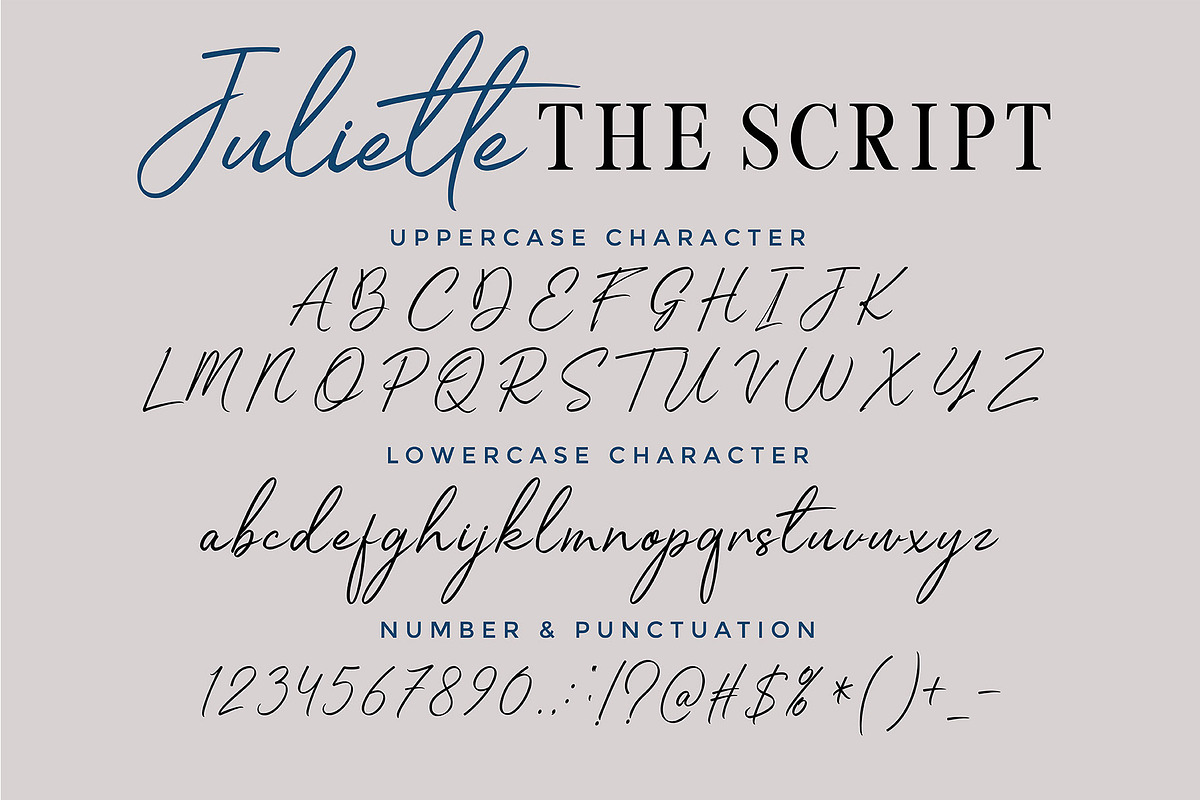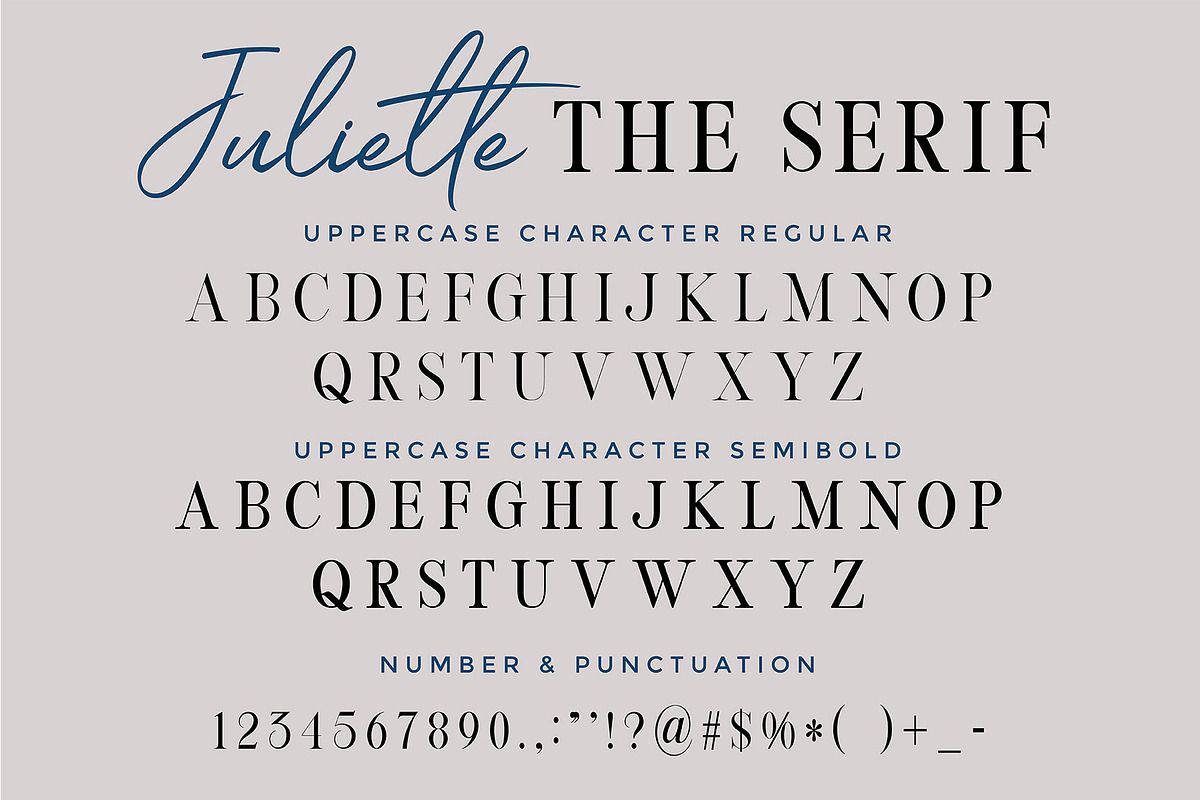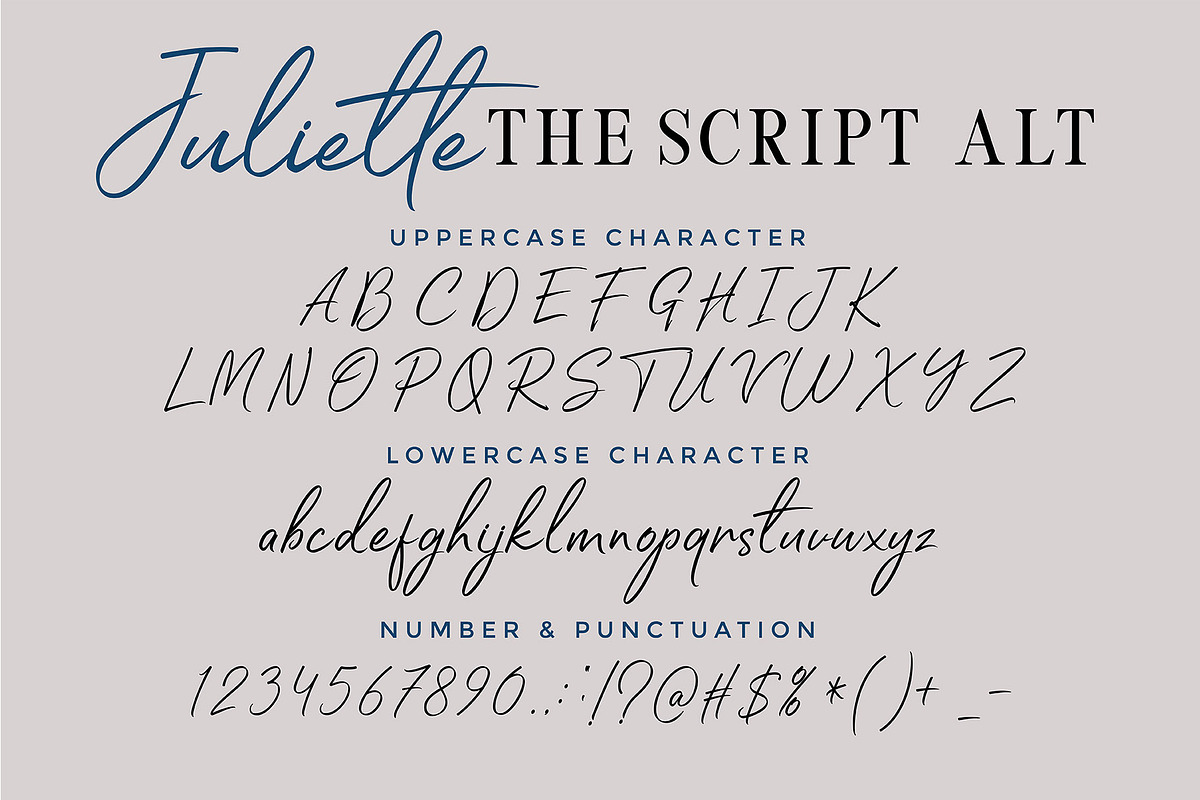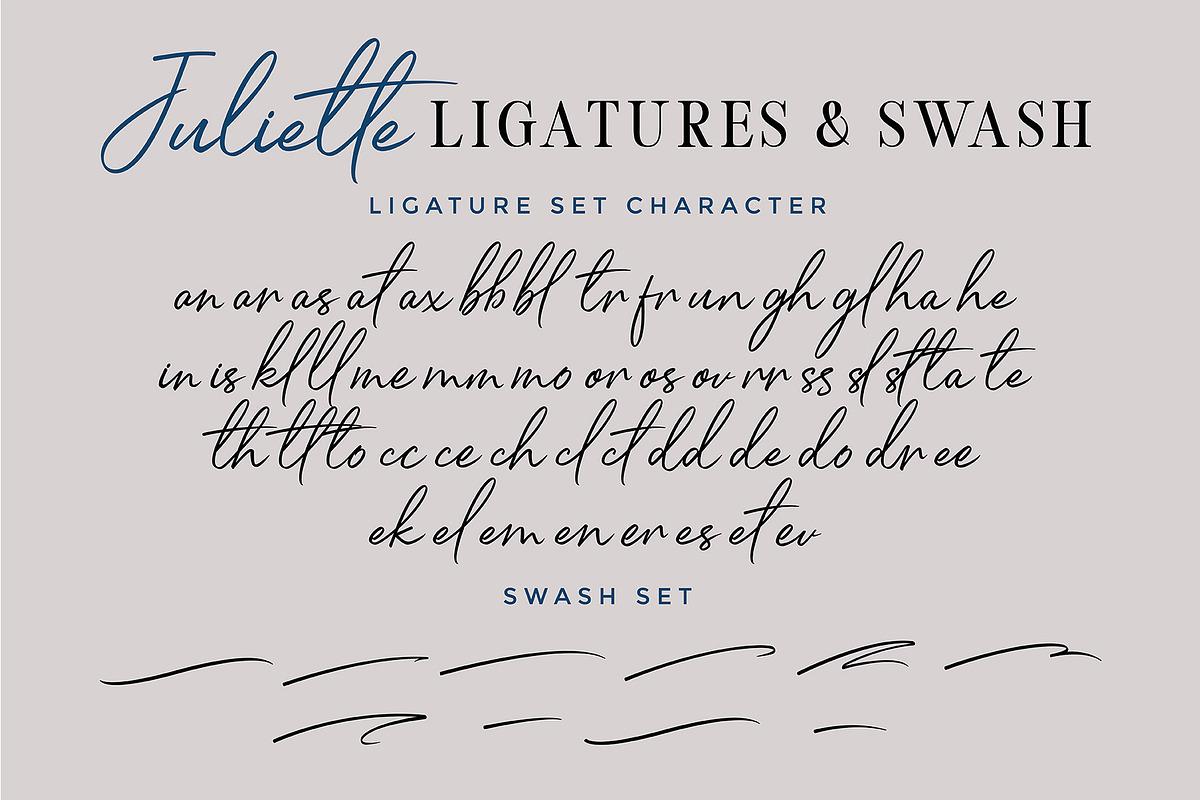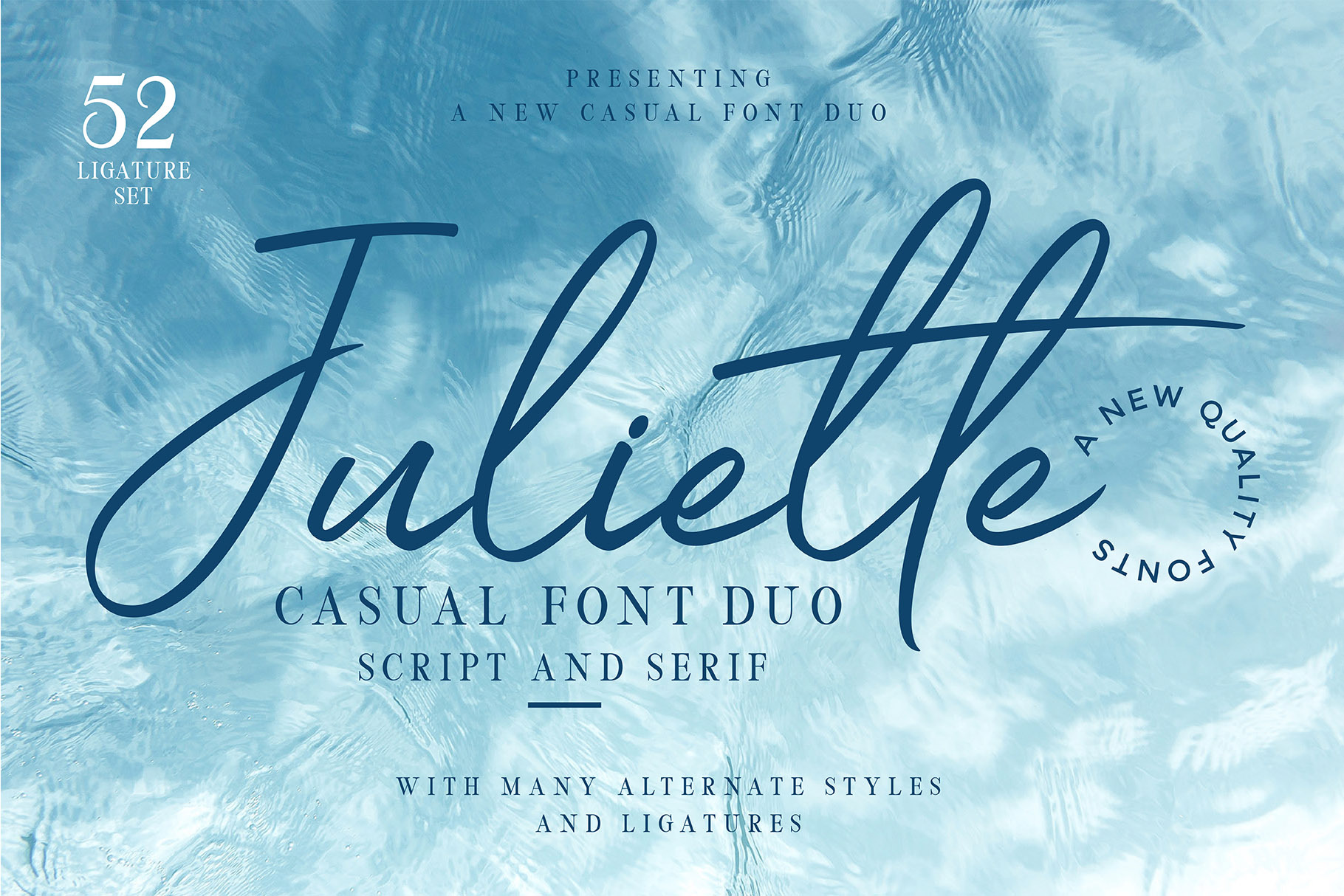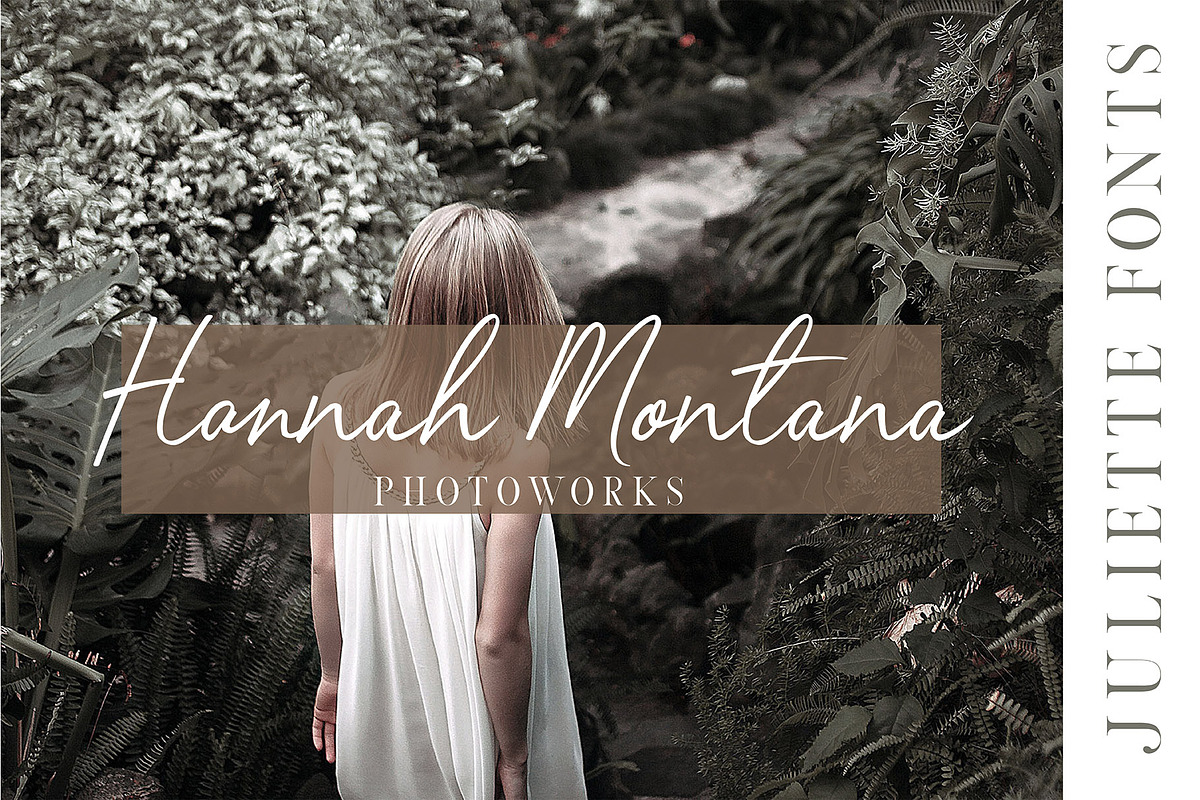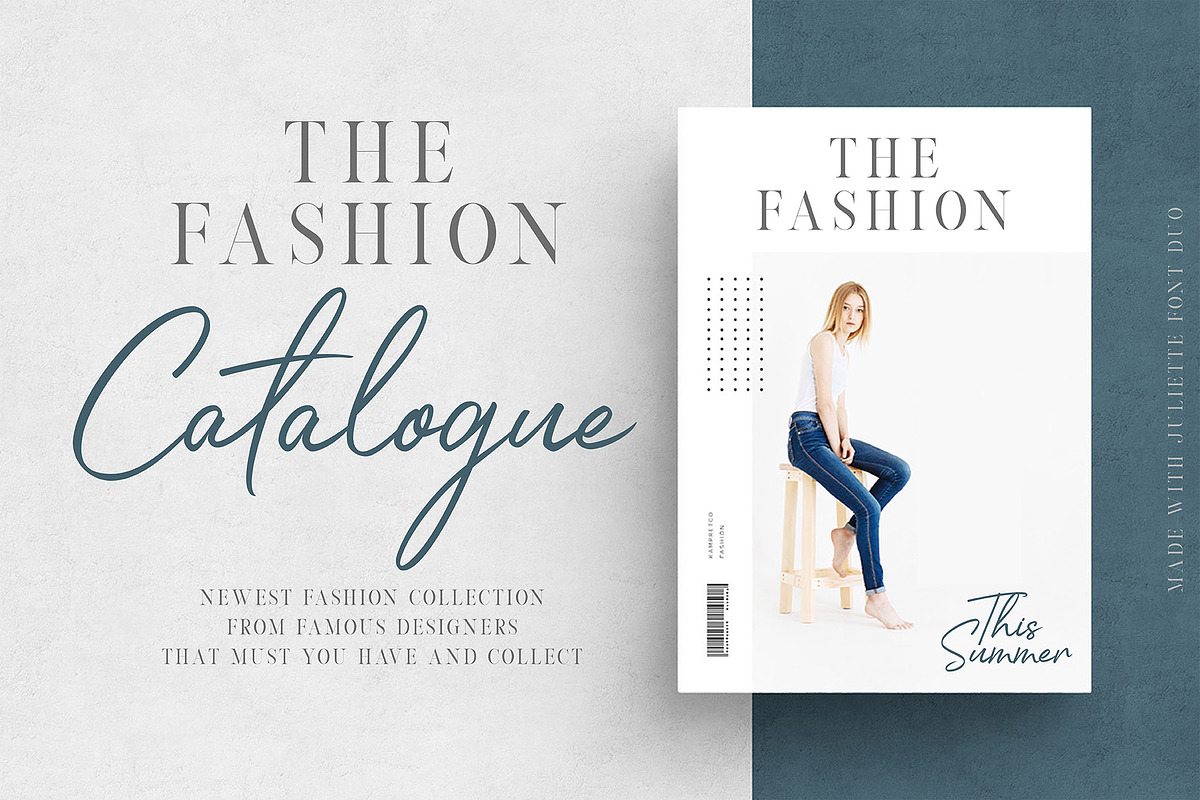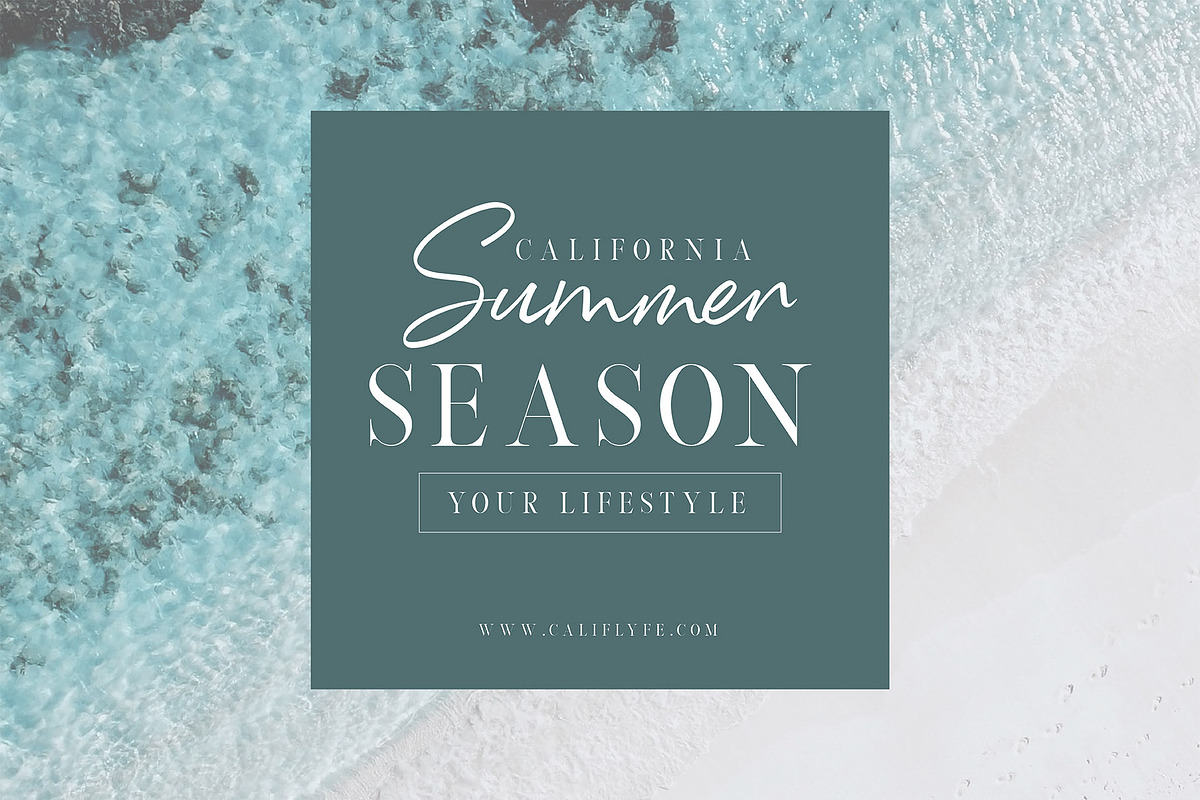
Juliette Font Duo Serif & Sans Serif With Many Variation and Additional Swash & Ligature
Juliette Font Duo is a handwritten script and casual serif with extra ligature, swash and so many variation. This collection fonts is perfect for personal branding. It was made with the intention to be used by Photographers, Fashion Designer as a watermark for their business - Hence the name and this works well for many applications. Everything from personal branding & wedding invitations to advertising could benefit from this collection fonts.
These fonts work well for many different aesthetics. They work well with something like 'cosmetics' for example but would also work well with Labels, Signage, Packaging, Book Cover & any type of signature-styled logo.